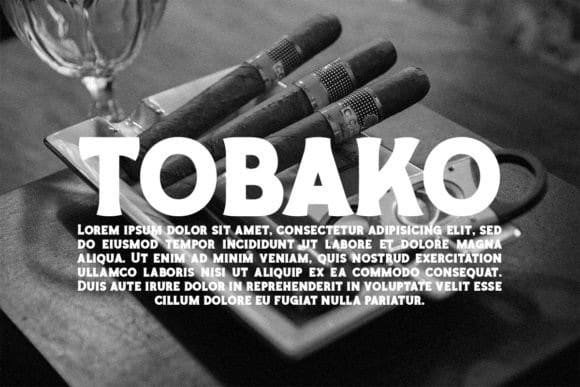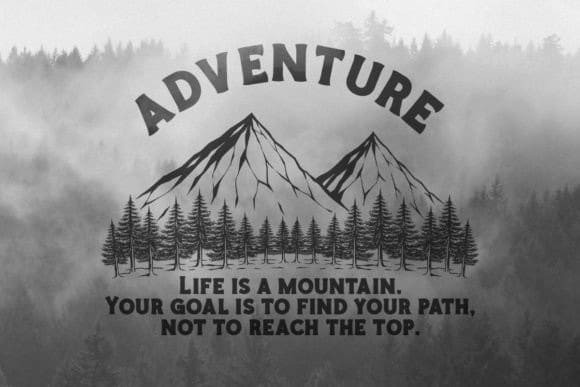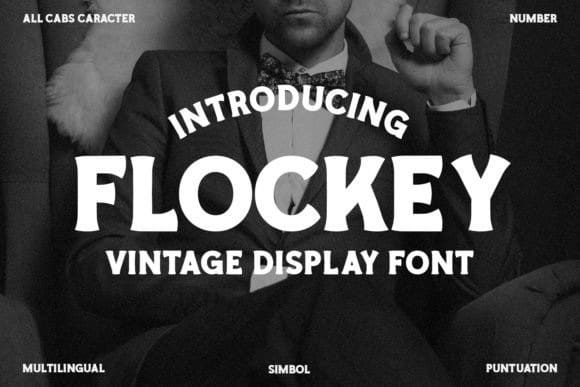
Flockey Display Font
Flockey Display Font is the perfect vintage typeface. It’s great for all kinds of projects that need that perfect vintage and retro touch, such as video game titles, posters, clothes, album covers, movies, etc.